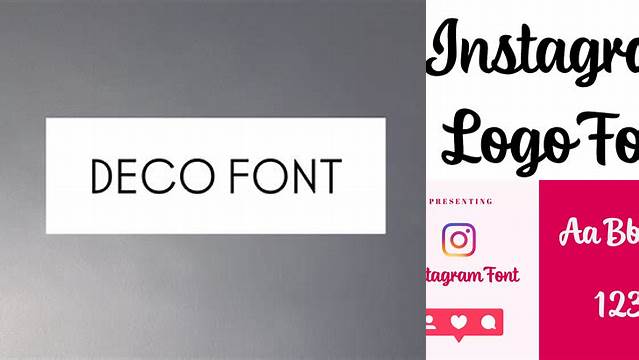
Deco Fonts: Free TTF Downloads For Instagram
Are you looking to enhance your Instagram presence with unique and eye-catching fonts? If so, you're in the right place! In this article, we'll dive into the world of deco fonts, specifically focusing on how you can download them for free in TTF (TrueType Font) format for your Instagram projects. Using the right font can dramatically change the look and feel of your posts, stories, and highlights, making them more engaging and visually appealing. Let's explore how to find, download, and utilize these amazing fonts to elevate your Instagram game. Guys, get ready to transform your Instagram with some seriously cool typography!
Understanding Deco Fonts
Deco fonts, short for decorative fonts, are typefaces designed to add flair, personality, and artistic expression to your text. Unlike standard system fonts like Arial or Times New Roman, deco fonts come in a wide variety of styles, ranging from elegant and sophisticated to playful and quirky. These fonts often feature unique shapes, embellishments, and design elements that make them stand out and grab attention. The goal of using deco fonts is to create a visual impact and convey a specific mood or theme.
Deco fonts can be used in various design projects, including logos, posters, invitations, and social media graphics. On Instagram, they are particularly effective for creating eye-catching captions, story templates, and highlight covers. By choosing the right deco font, you can reinforce your brand identity, convey your message more effectively, and attract more followers. Think of deco fonts as the outfits your words wear – they can dress up your content and make it look more stylish and appealing. Seriously, the right font can make all the difference in how your content is perceived!
Furthermore, deco fonts can help you differentiate yourself from the competition on Instagram. With millions of users vying for attention, it's essential to find ways to stand out and make a lasting impression. Using unique and well-chosen deco fonts can help you create a distinctive visual identity that resonates with your target audience. Whether you're a small business owner, a content creator, or an individual user, incorporating deco fonts into your Instagram strategy can help you elevate your brand and achieve your goals.
Finding Free Deco Fonts for Instagram
Finding free deco fonts for Instagram is easier than you might think. There are numerous websites and online resources that offer a wide selection of fonts for download. However, it's important to be discerning and choose fonts from reputable sources to avoid downloading malware or violating copyright laws. Here are some of the best places to find free deco fonts for Instagram:
- Google Fonts: Google Fonts is a vast library of free, open-source fonts that can be used for personal and commercial purposes. The fonts are easy to browse and download, and they are optimized for web use, making them ideal for Instagram. You can filter fonts by category, style, and language to find the perfect deco font for your needs. Plus, Google Fonts provides helpful information about each font, including its designer, usage examples, and licensing terms. It's a super reliable source, guys.
- DaFont: DaFont is another popular website that offers a wide variety of free fonts. The fonts are organized into categories such as fancy, cartoon, gothic, and retro, making it easy to find the style you're looking for. However, it's important to note that some fonts on DaFont may be free for personal use only, so be sure to check the licensing terms before using them in your Instagram projects. DaFont is a treasure trove of unique fonts, but always double-check those licenses!
In conclusion, using deco fonts can be a great way to enhance your Instagram presence and create a more visually appealing profile. By finding free TTF fonts, downloading them, and using them strategically in your posts, stories, and highlights, you can attract more followers and achieve your goals. Remember to consider your brand identity, prioritize readability, and test the font before using it in your projects. With a little bit of creativity and the right deco fonts, you can transform your Instagram into a visual masterpiece. So, go ahead and experiment with different fonts and see what works best for you. Have fun and happy designing, guys!